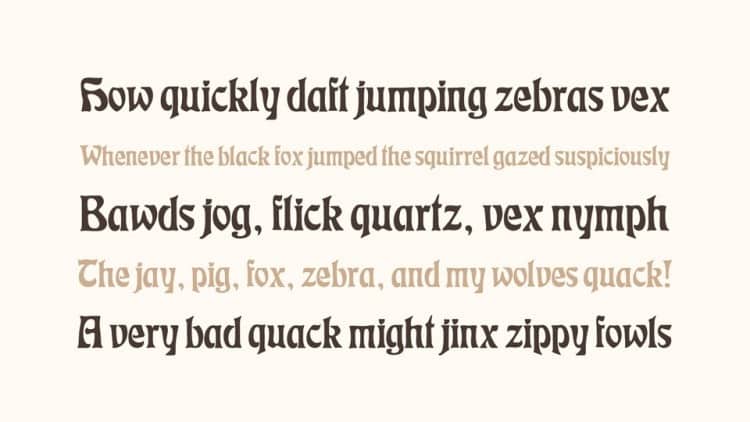
CAT Eckmann Display Font is a display typeface. It’s a flowing Art Nouveau typeface with a strong flavor of Fraktur based on the design by Otto Eckmann. Fall in love with its incredibly versatile style and use it to create beautiful designs!
CAT Eckmann is perfect for striking typographic effects and vintage artworks.